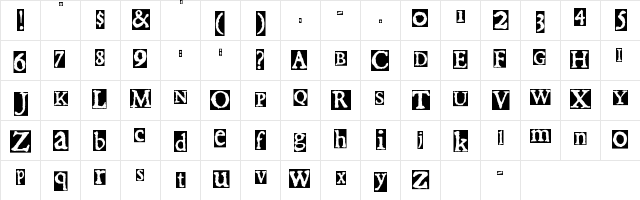
Complete 2Peas Short Blonde Hair 2Peas Short Blonde Hair glyph index. Displaying only characters natively supported by 2Peas Short Blonde Hair 2Peas Short Blonde Hair font.
2Peas Short Blonde Hair is a composed and adaptable typeface that performs quietly and consistently across a wide range of design contexts.